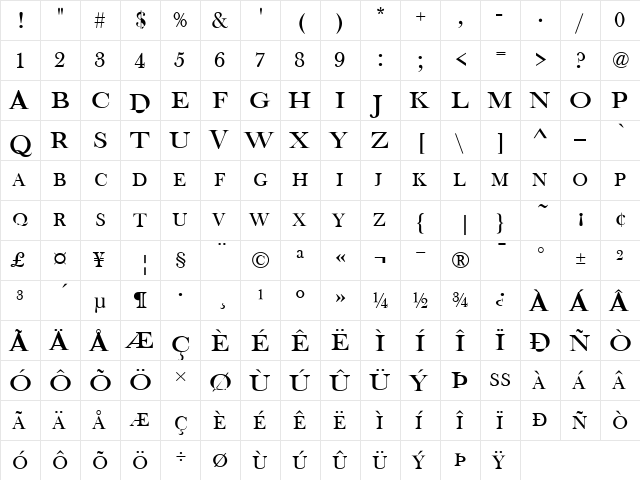
Baskerville Old Face DC D Regular
Design Context for Baskerville Old Face DC D Typeface
Baskerville Old Face DC D is a composed and adaptable typeface that performs quietly and consistently across a wide range of design contexts.